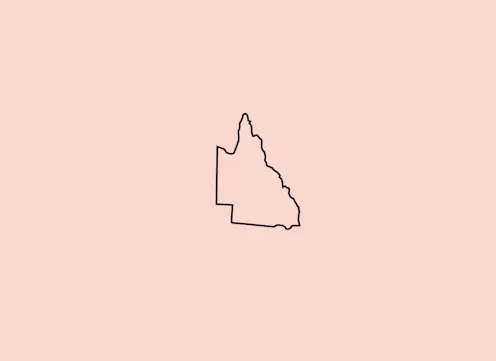
You might have scrolled right by Annastacia Palaszczuk’s recent quote posts if you saw them on Instagram – just another lifestyle influencer posting a “deep” quote – but when she (or her media team) reposted them to Twitter they stood out as belonging to another platform.
Blush pink, serif fonts, minimalist art – this isn’t what we expect to see on a politician’s feed. Instead, it all screams “Insta”.
But what is an Instagram aesthetic – and what does it do for Palaszczuk in the midst of a public health crisis, and the lead-up to an election?
Parsing Insta aesthetics
On Wednesday, Palaszczuk posted an crisp image above across her social feeds, including Twitter, Instagram and Facebook: a blush-pink background with the text “I will do everything I can to keep Queenslanders safe”.
Above, line art of Queensland’s borders; below, Palaszczuk’s name and “Premier of Queensland”, bolded and in all-caps.
This post – the latest in a series of three quotes posted since July 24 - leaps out from a grid that mixes up busy but low-contrast infographics with the vivid colours of the Queensland outdoors.
As readers, we recognise this form instantly: this is an inspirational Insta quote. We know that because specific visual elements work together to help us understand and categorise the image.
First up, the background colour. A post on July 31 used duck-egg blue; this latest is a soft blush pink, maybe not quite millennial pink, but definitely in that ballpark.
The pink is a muted Queensland maroon used across the account, and the flat texture makes it stand out from the busier backgrounds on her illustrated announcements.
Then there’s the font choices. Serif fonts read formal, literary – and as some users have commented after Instagram added serif fonts to Stories this week, “pretty”.
Using a serif font for the quote makes it seem like something we’d read in a book, elevating its importance. The blocky serif font for the credit reads strong, powerful and modern, as does the use of line art to replace the silhouette of Queensland used in earlier posts.
The vertical and horizontal centre alignment is also characteristic of Insta-inspiration quotes, which work best when they’re designed to transition seamlessly across the platform: cropped to a square for the grid and to a vertical rectangle for Stories.
When visual elements like text or icons are aligned to the edges of an image in one format, they look wrong when the edges move – like when you extend a square pic vertically to fill a phone screen.
This is what makes an earlier quote post look like it belongs on Twitter, not Instagram: the Queensland silhouette sits in the top right corner of the horizontal crop on the Twitter timeline, but floats when the image is extended to a square on Instagram.
Embracing these aesthetics softens a strong message, helping Palaszczuk navigate the double standards applied to women in leadership.
The strong, direct phrasing foregrounds Palaszczuk’s leadership and commitment to Queensland’s security, while the feminine influencer layout helps dodge misogynist accusations of unladylike behaviour.
Genre tells us how to read
These design choices are all examples of genre conventions: visual and written clues that help us know how to read and understand a message.
For politicians, committing 100% to social media genre conventions is a risky game.
Done well, you’re Alexandria Ocasio-Cortez, serving up voter education as she cooks mac and cheese, or sharing her notes for her iconic response to Ted Yoho.
Ocasio-Cortez uses a different, less obviously curated genre - it works because it feels authentic, relatable and consistent.
Miss the mark and risk your mentions clogging with Steve Buscemi gifs: “How do you do, fellow kids?” So why risk it?
Palaszczuk’s quote posts don’t feel #OnBrand amidst the outdoor photo ops, illustrated announcements and daily infographics that characterise her grid.
But by playing on readers’ implicit understanding of Instagram genres, they position her as a social leader.
As readers, we recognise that a flat pastel background, a prominent quote and maybe some minimal art signals a particular genre.
When we see a post go by on our timelines that looks like that, our understanding of genre conventions primes us to expect an inspirational quote from an historic figure – a Martin Luther King, a Gandhi, an Audre Lorde – and then signals to us that Palaszczuk belongs in that list: a world leader whose words can guide us in an unprecedented public health crisis.
The text says: “I will do everything I can to keep Queenslanders safe”; the subtext says: wouldn’t you vote for someone like me in October?